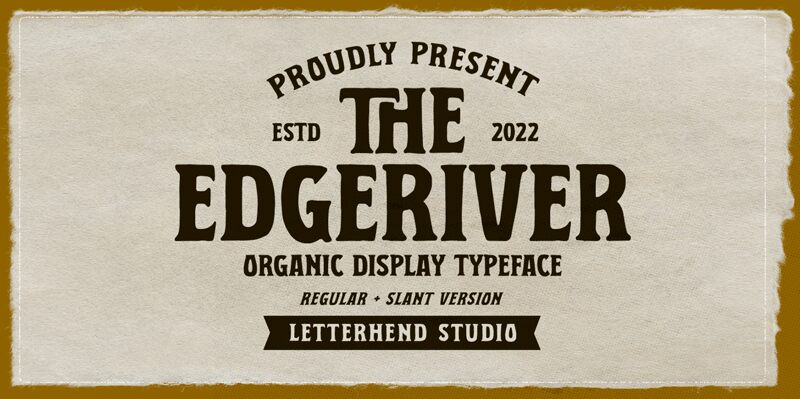
Edgeriver, the bold and semi-condensed retro serif font by Letterhend Studio, exudes a classic charm that captivates. With its display typeface, it adds a touch of vintage elegance to various creative projects. Perfect for eye-catching logos and branding materials, Edgeriver lends a sense of nostalgia to retro-themed designs. Its bold weight effortlessly grabs attention and makes headlines pop on posters or advertisements. Whether you're working on a magazine layout or revamping your website, Edgeriver's unique style and semi-condensed width will elevate your project with its timeless appeal.